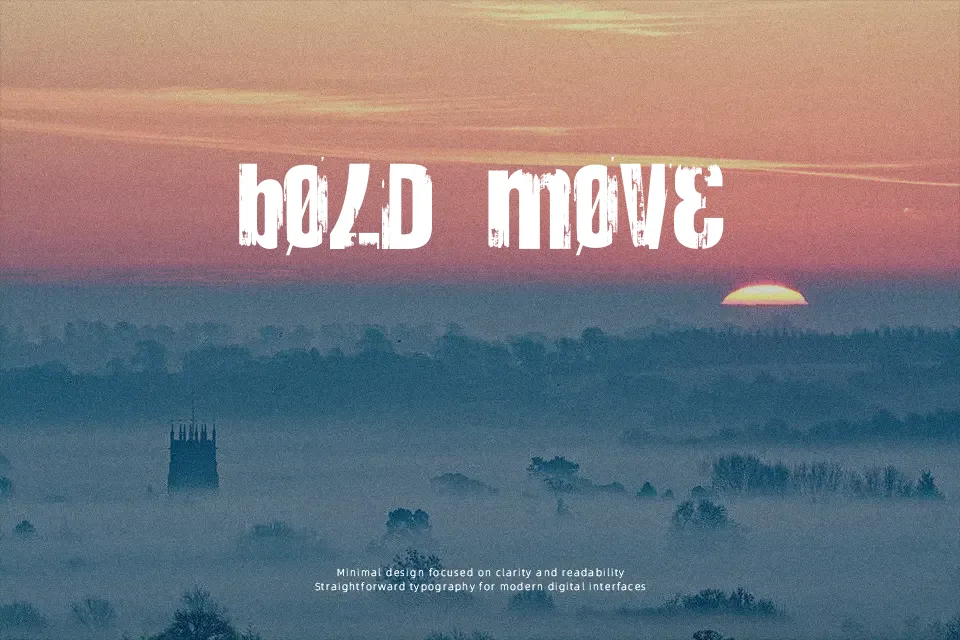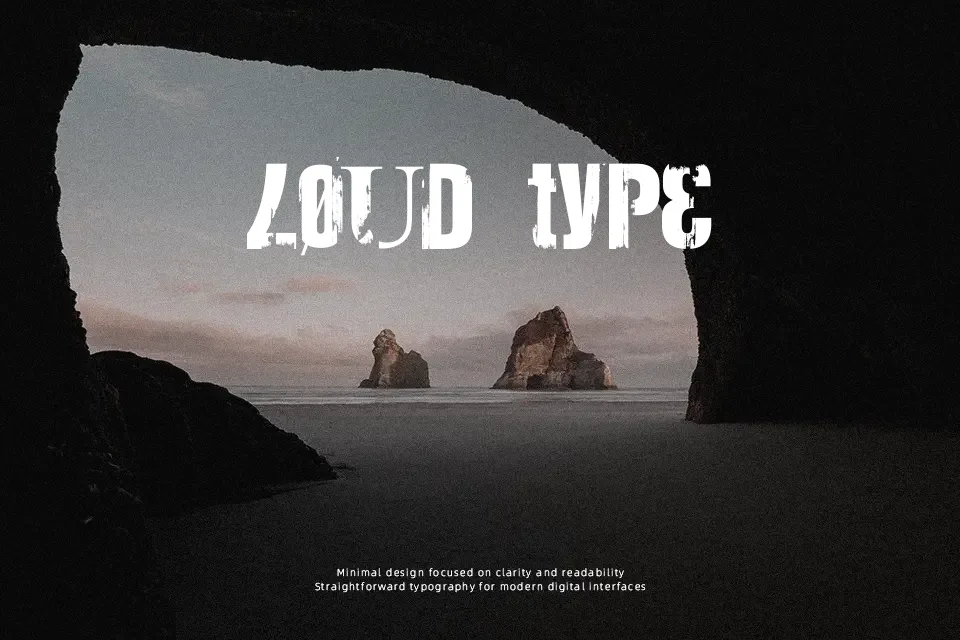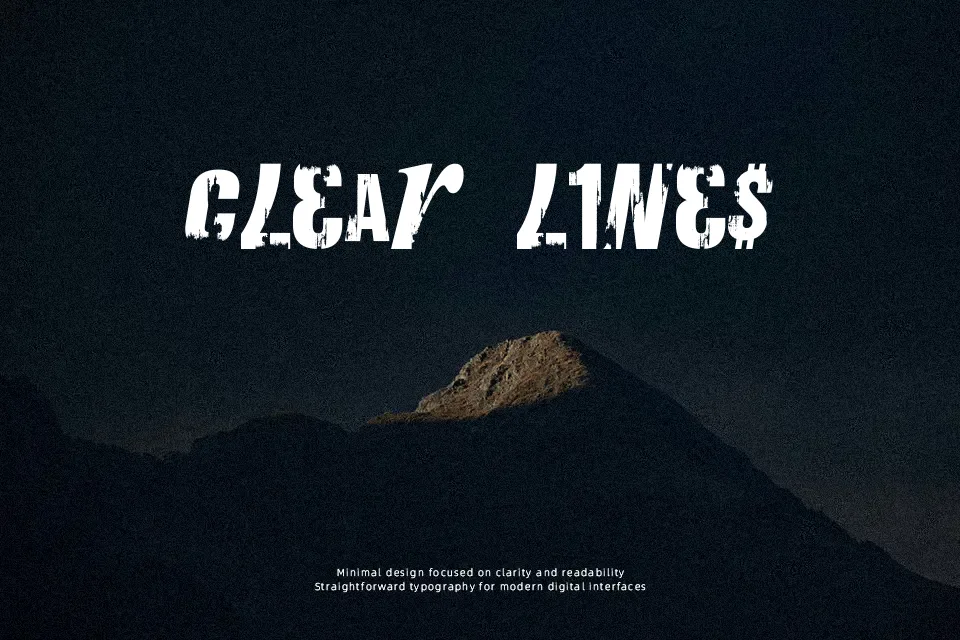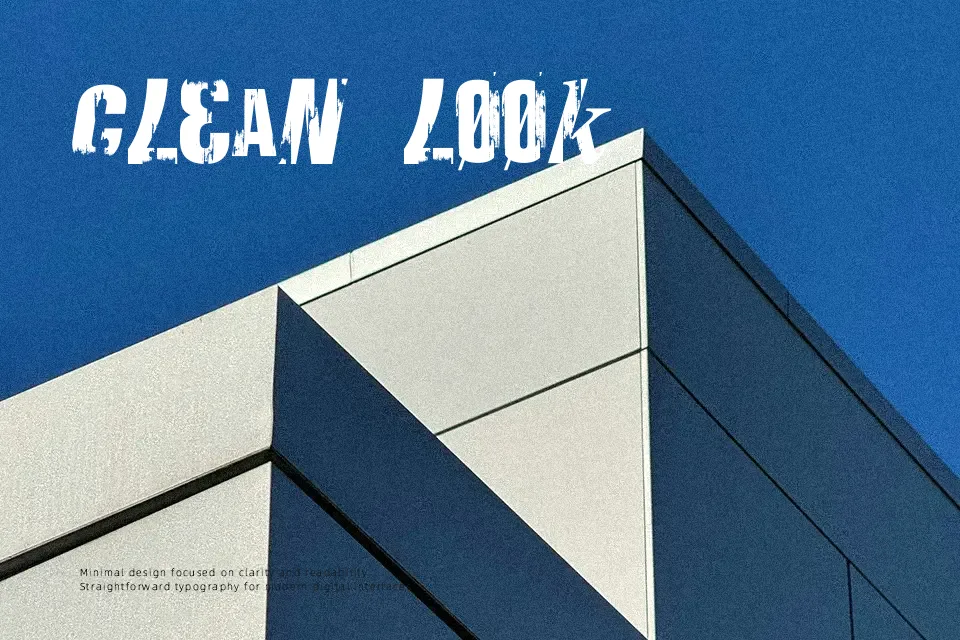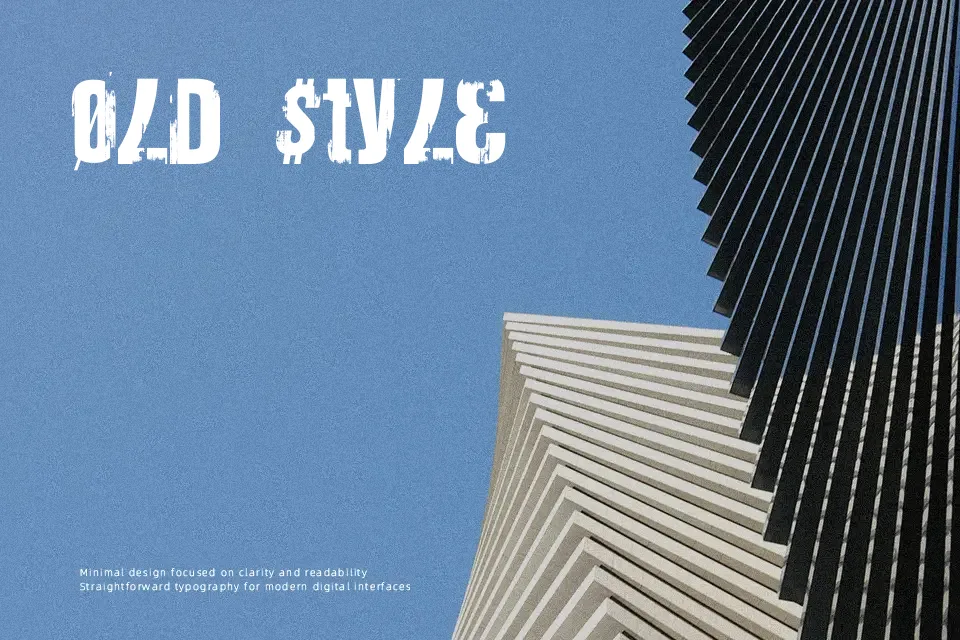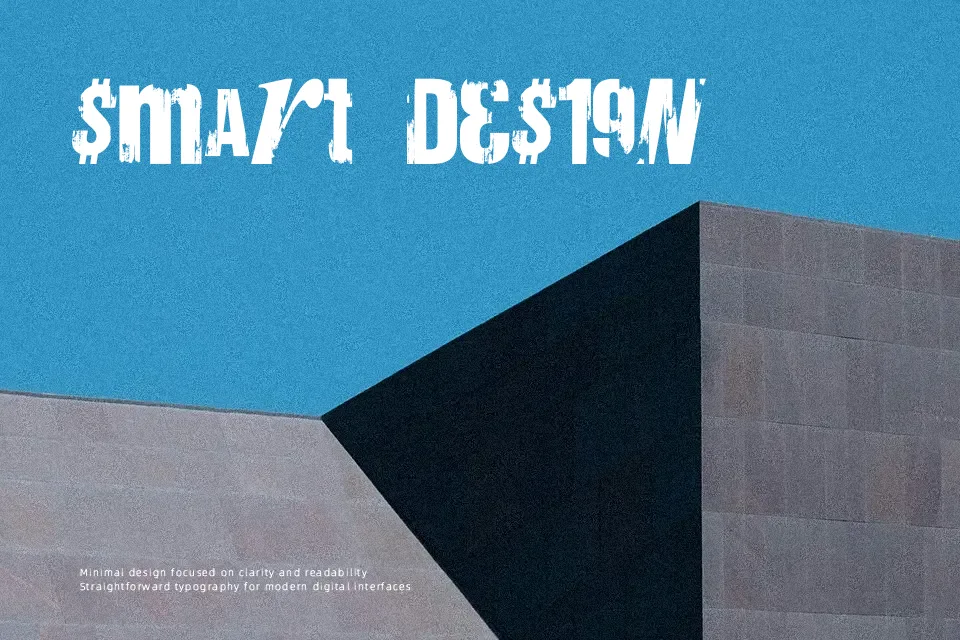
Anarchy Font
A quick look at Anarchy Font reveals heavy, uneven strokes that mimic a half-dry marker dragged aggressively across a rough surface. Designed by Marcio Hirosse, this display typeface throws out the rules of alignment and clean curves, leaning fully into a destroyed, rebellious aesthetic. Its chaotic nature carries a lot of visual weight, making it highly effective for underground event branding, metal or punk album art, and edgy apparel graphics. While its rawness is its biggest asset, it is also its fatal flaw for functional design—using this font for standard paragraphs or small user interface elements will result in an illegible mess. It demands large sizes and short words to work properly.
Best For:- Grunge-style band merchandise
– Punk or metal gig posters
– Edgy streetwear brand headlines
Not Ideal For:- Body copy in magazines
– Small UI navigation text
– Clean corporate presentations
Perfect for branding, fashion, and logo, with a bold and decorative style.